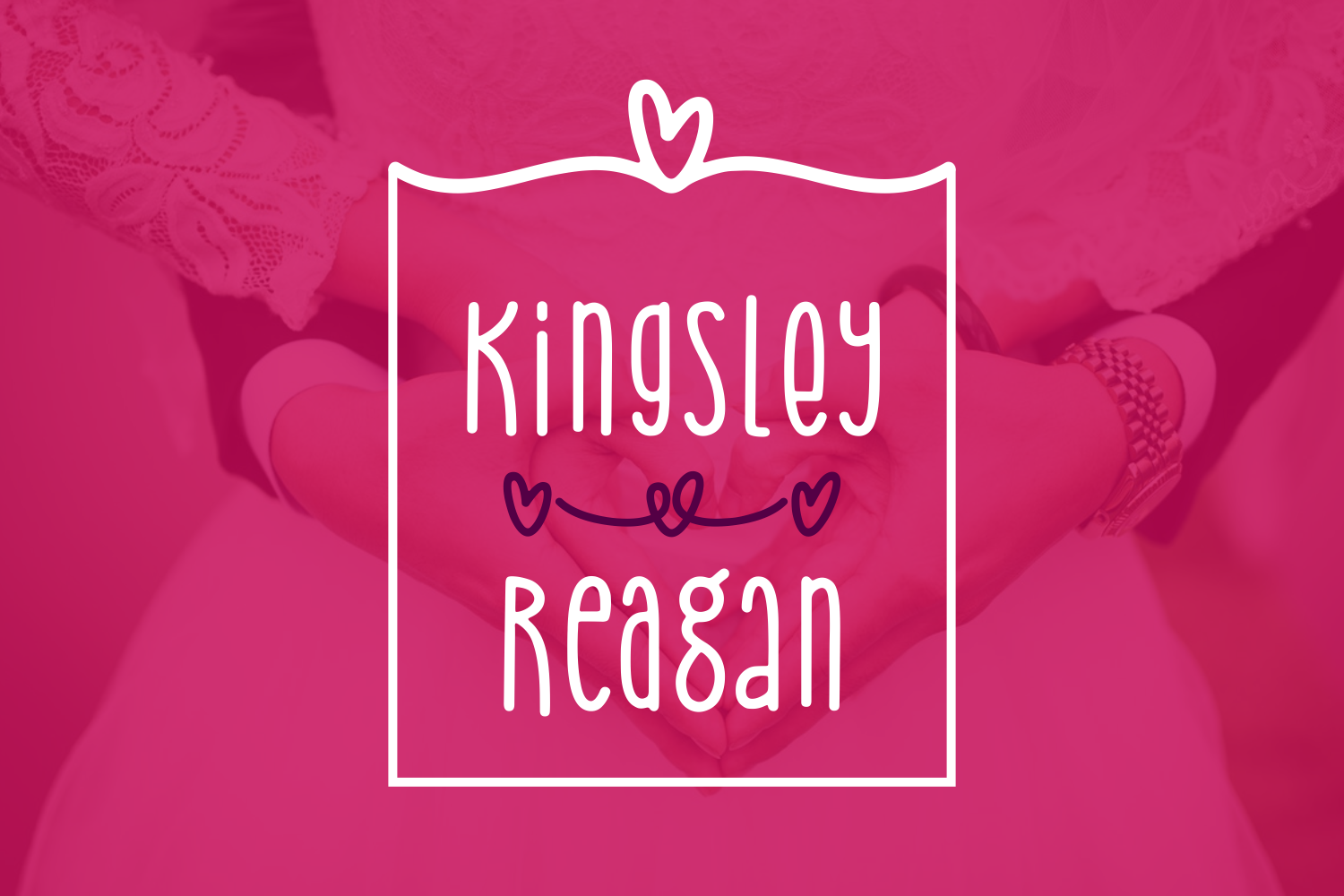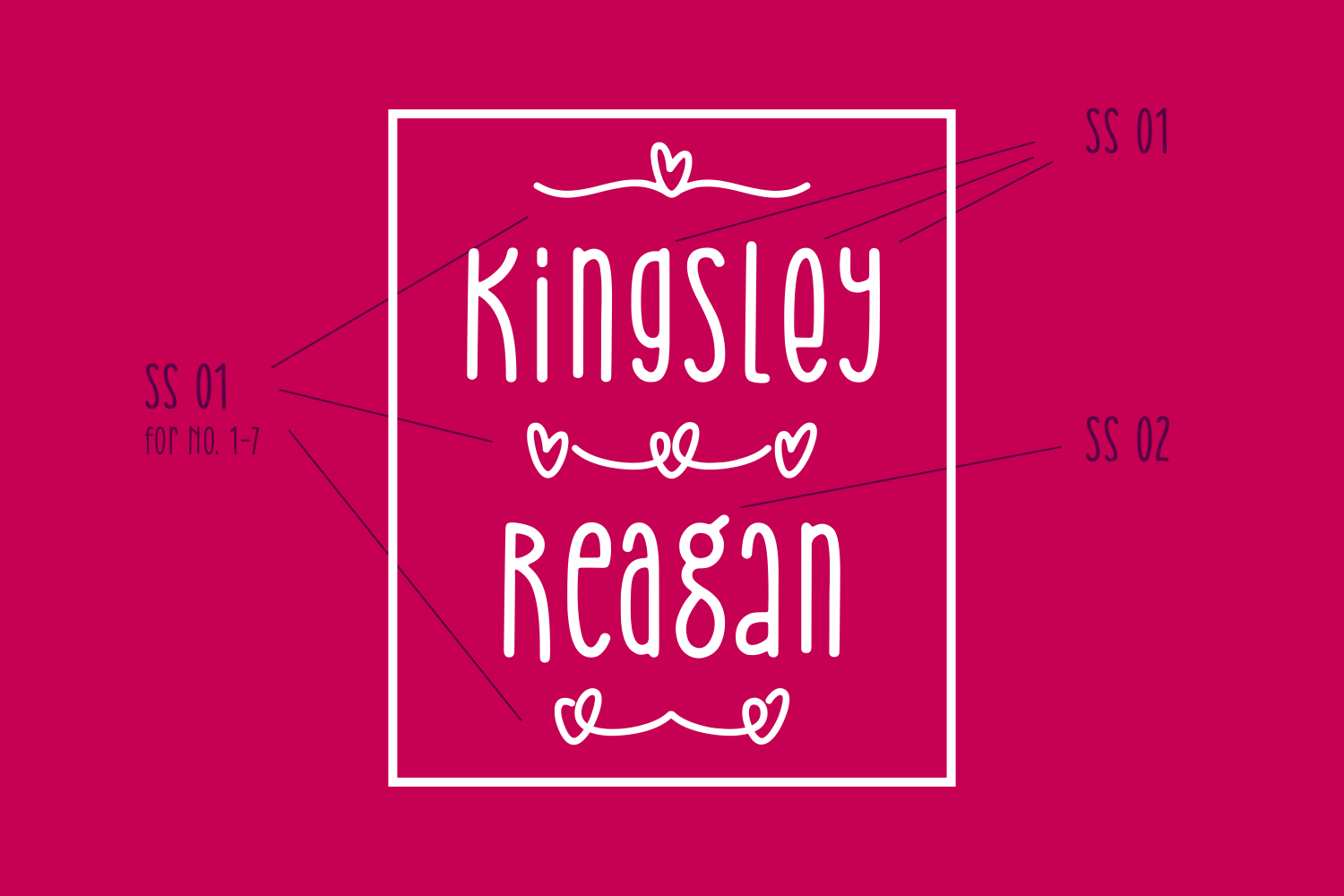
Cheria Font
About Cheria Font
Cheria is a cutesy and friendly handwritten font, perfect for giving your designs a genuine and youthful look. This sans serif font is a great monoline font that looks great in a wide range of designs.